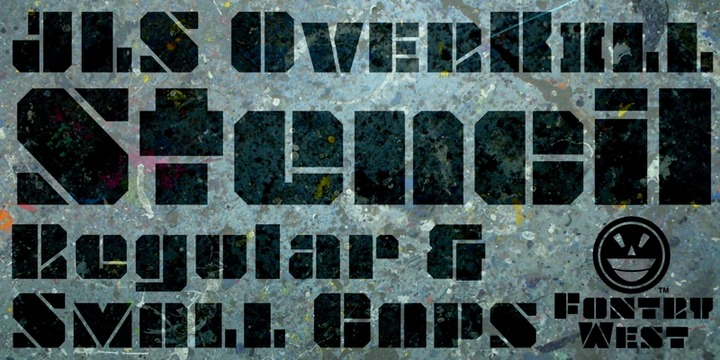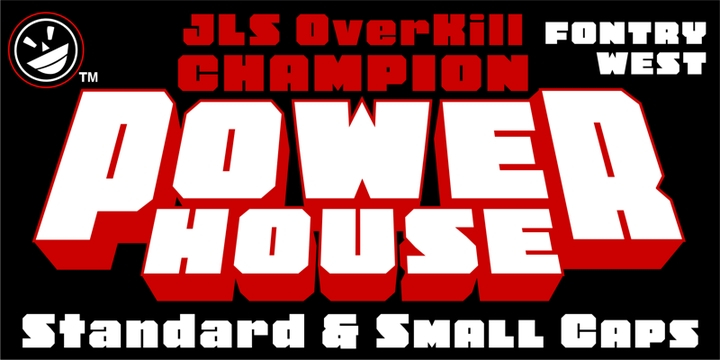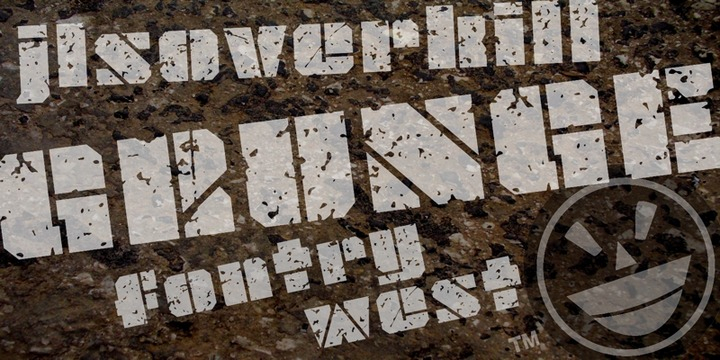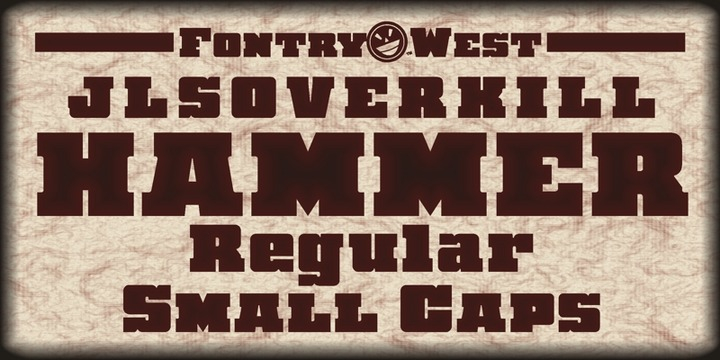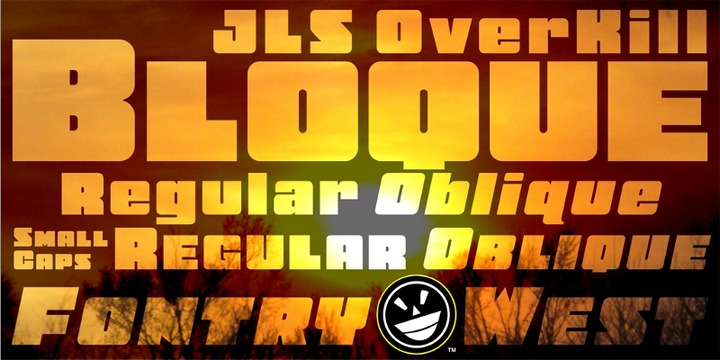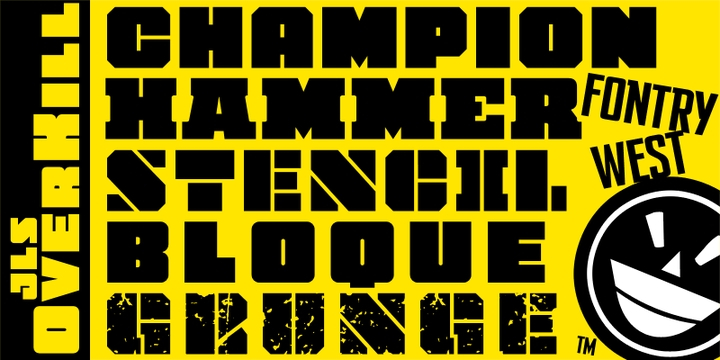
JLS OverKill is a multiple classification font family. This typeface has thirteen styles and was published by Fontry West.
OverKill Bloque was created in 1991 as a banner logo for a gamers’ fan newsletter, The OVERKILL Casualty Report. As letterforms were built for various headlines, a font took shape. Just for grins I fleshed out an uppercase and numbers and named it Ultra Bold. Later, when Mike and I were working on our chiseled race pak, Ultra Bold convexed nicely and fit in with the modern sports look of that font pak. Mike is most at fault for the lowercase. No face should be without a lowercase! Since then, OverKill / Ultra-Bold has made its way onto the covers of two comic books and numerable vehicles and signs. In 2008 I decided to make it more useful for the desktop crowd. I brought back the OverKill name and called the first font in the family, OverKill Bloque.
All of the faces in the OverKill family are heavy hitters, designed for poster and display applications. Their shapes are extreme, pushing negative spaces to the max. Bloque is forceful and solid, great for logos. It is a strong headline face for comic and manga covers. More geometric and angular, Champion is a sports font. It will be at home on the field or on the court, adorning varsity fund-raising t-shirts or university / professional team logos. Though not quite rustic or antique, Hammer is a slab-serif, a tough hombre with a country flavor. But don’t think of it just in terms of Wild West posters and western-wear logos. Hammer will be stiff competition on Ivy League sweatshirts and other sports imprints. OverKill Stencil builds strong logos for construction and industrial products branding. And what futuristic sci-fi military would be complete without Stencil markings on its massive war machines? And for a matching worn-and-torn look, Grunge Stencil is a distressed font that conveys a sense of decay and erosion so typical of today’s culture. Grunge screams punk posters and underground bands and the products of a misspent youth.
Don’t just overdo, OverKill.